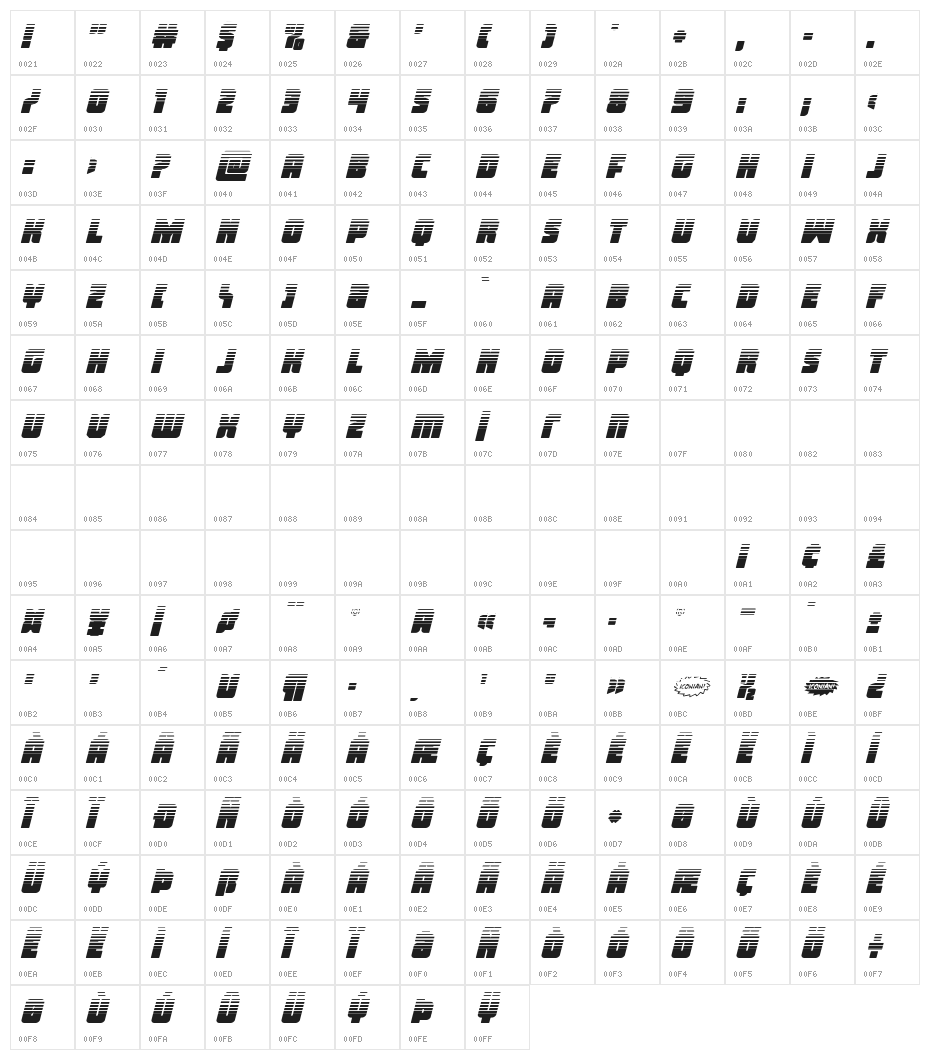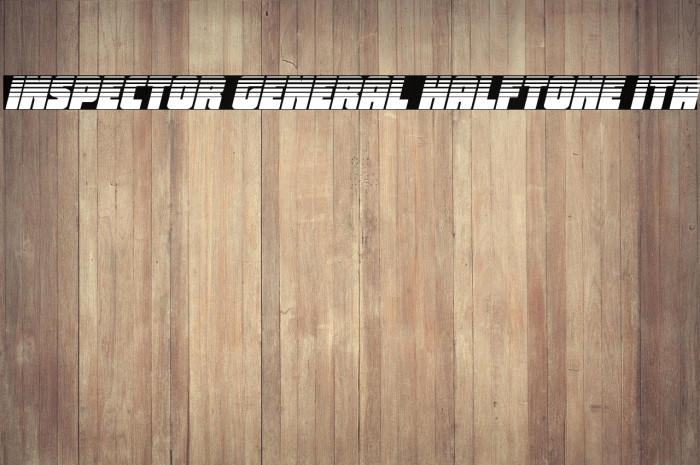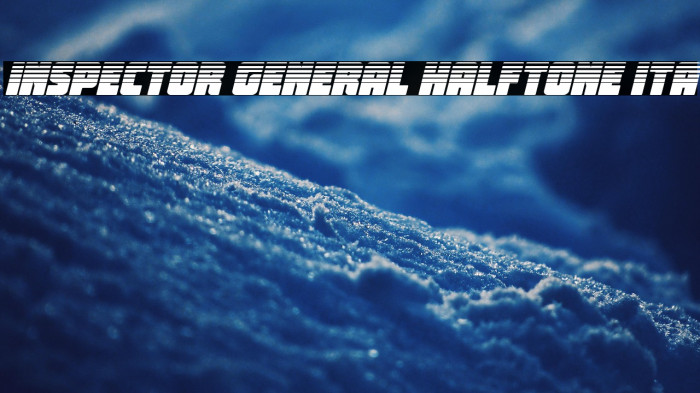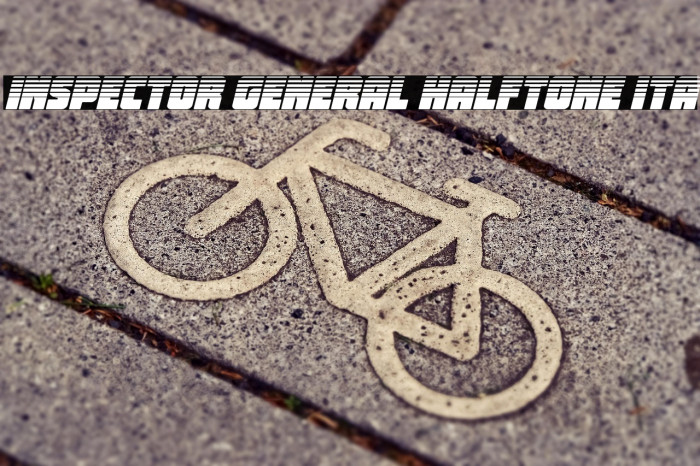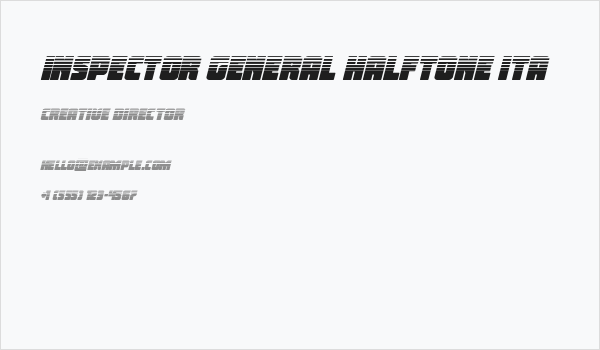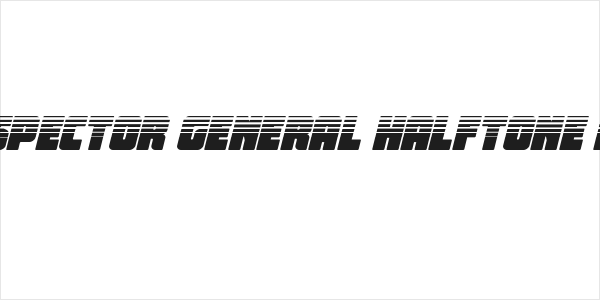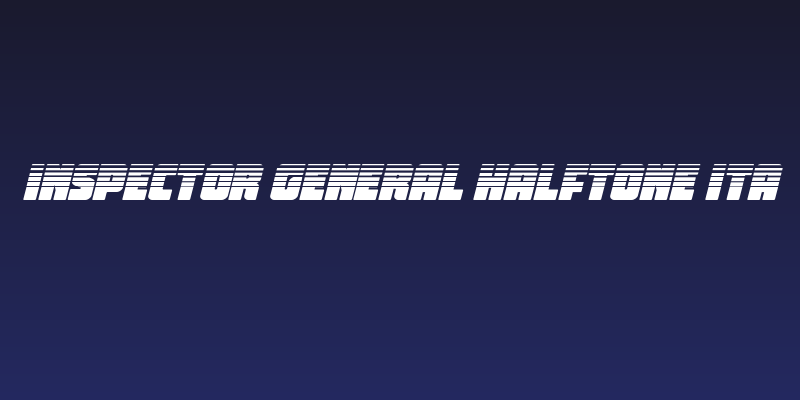
Inspector General Halftone Ita Font
Inspector General Halftone Ita Description
This font features a bold, dynamic style with a halftone effect that gives it a unique, futuristic appearance. The characters are uppercase and lowercase letters, numbers, and a selection of special characters. Each character is composed of horizontal lines that create a sense of movement and depth. The bold weight and expanded width make it stand out, while the halftone pattern adds a textured, layered look. The font is highly decorative and ideal for projects that require a strong visual impact. Its distinct style is reminiscent of retro-futuristic design, making it suitable for modern and vintage-themed projects alike.
WidthExpanded
Overall StyleFuturistic, Retro
Proposed ProjectsIdeal for posters, album covers, video game titles, and branding that requires a bold, eye-catching design.